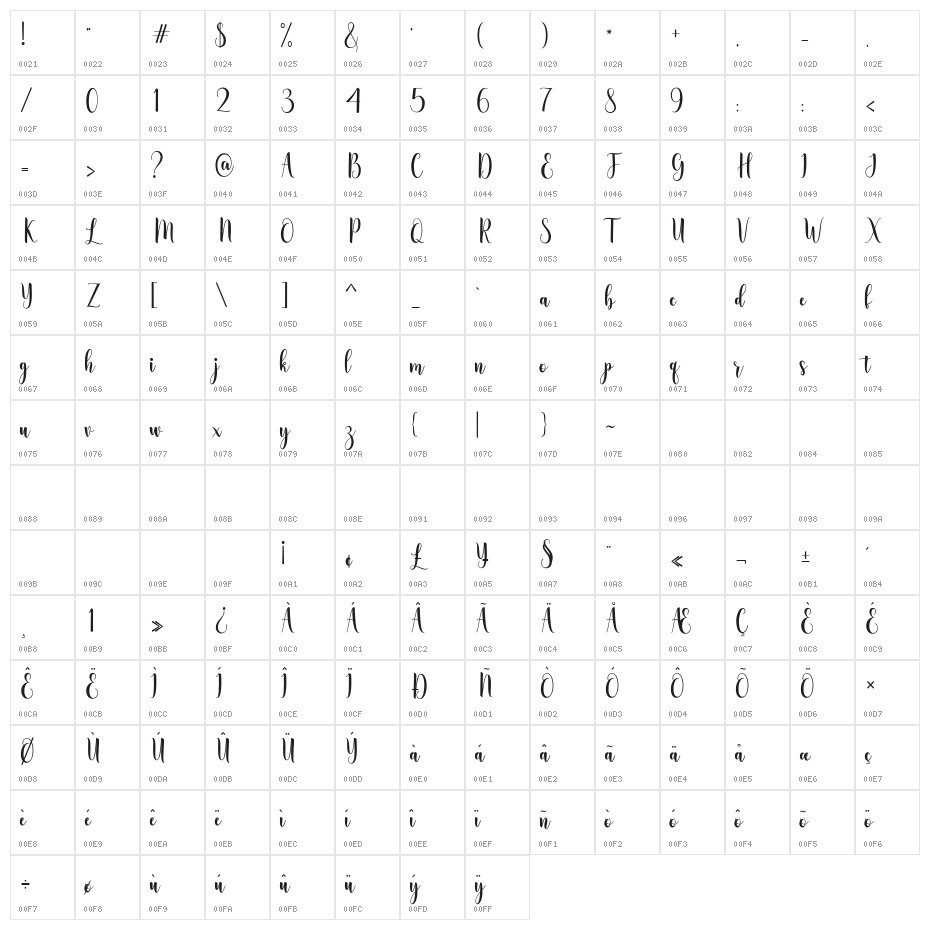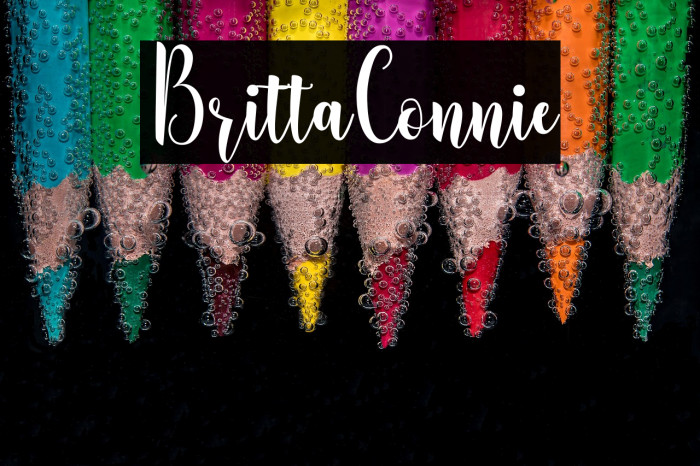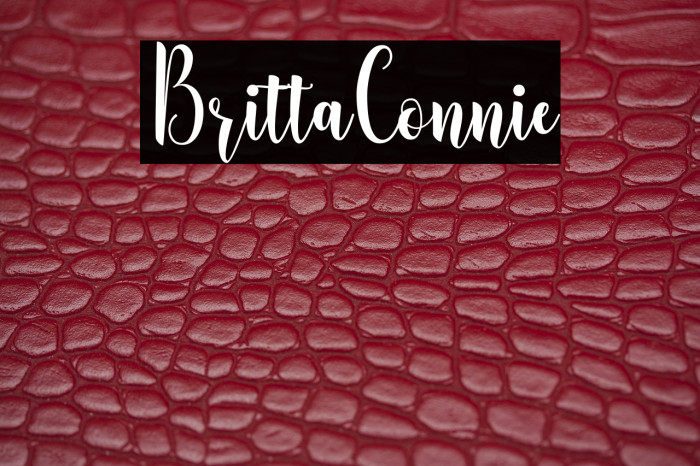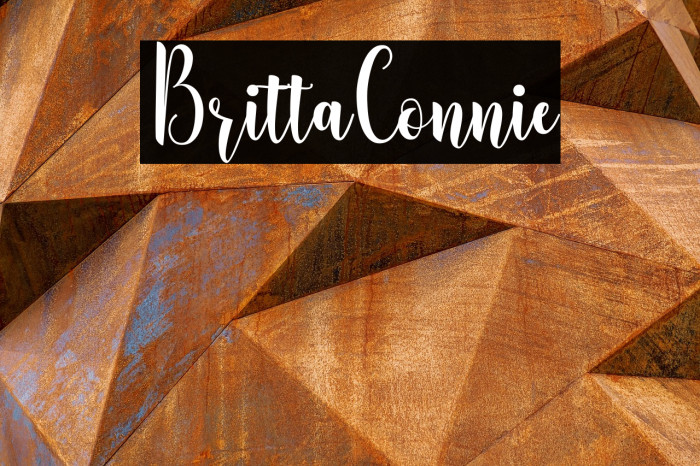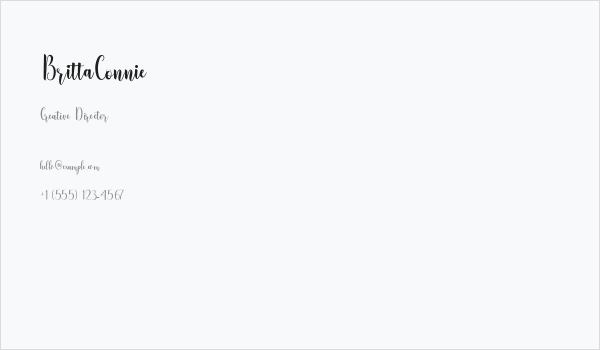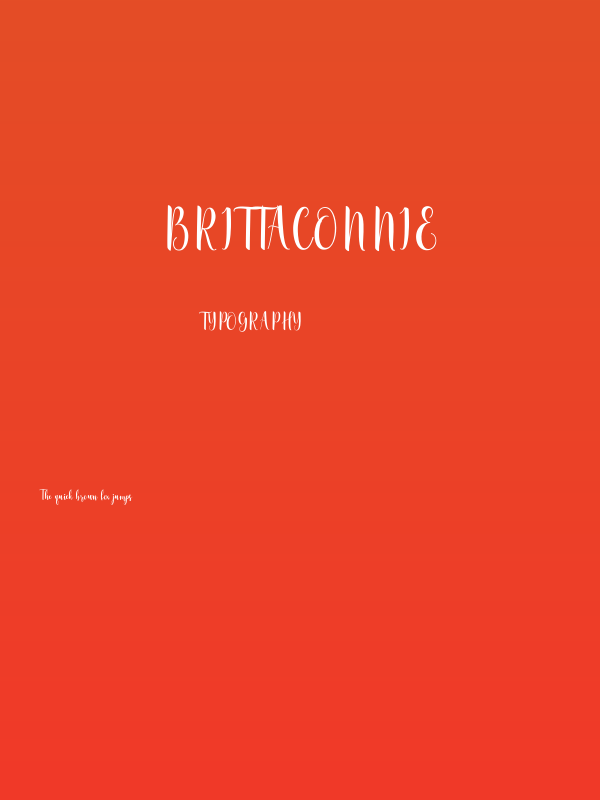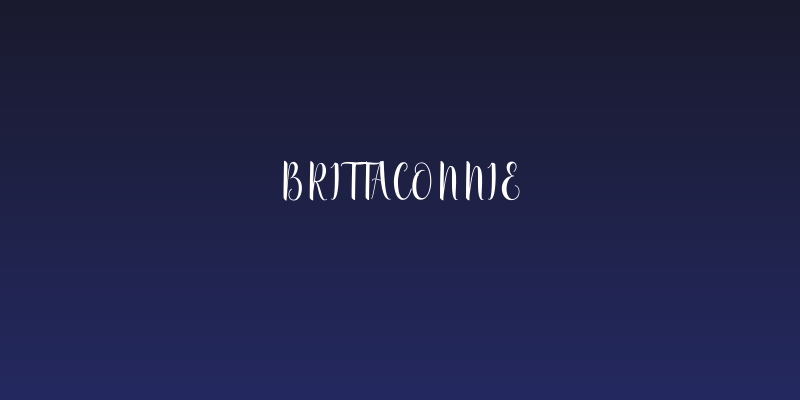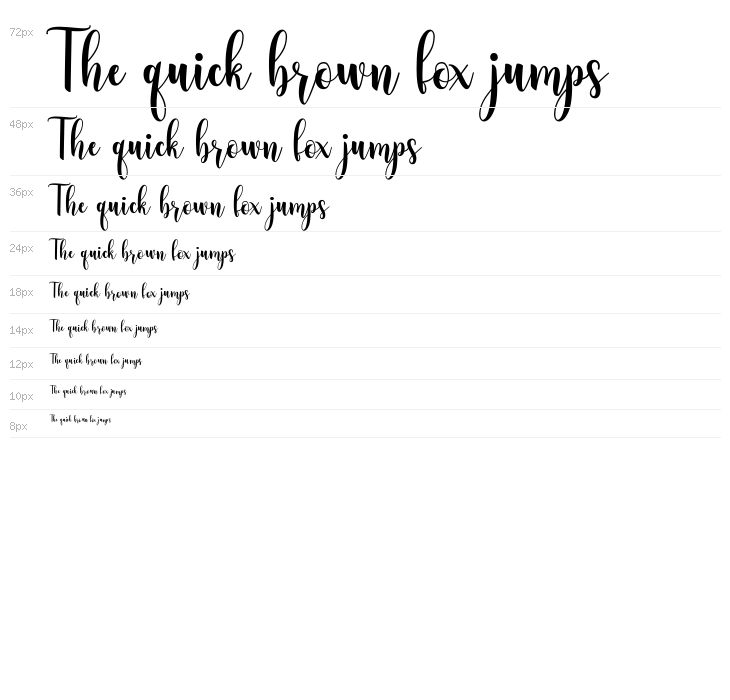
BrittaConnie Font
BrittaConnie Description
This font features an elegant and flowing script style, characterized by its smooth, cursive strokes and a playful yet sophisticated appearance. The uppercase letters are tall and slender, with graceful loops and swashes that add a touch of flair. The lowercase letters maintain a consistent flow, with rounded forms and delicate connections between characters. The numerals are stylish and maintain the same fluidity, making them blend seamlessly with the alphabet. Special characters are thoughtfully designed to complement the overall aesthetic, ensuring a cohesive look across all text. This font is perfect for projects that require a personal touch, such as invitations, greeting cards, or branding materials. Its decorative nature makes it ideal for creating eye-catching headlines or logos that stand out.
| Proposed Projects | Ideal for invitations, greeting cards, branding, and decorative headlines. |